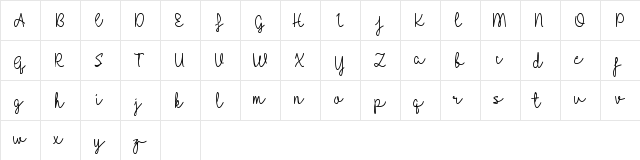
Halilintar Regular
| Designer | Aptfahmi - Fahmi sadik - Ternate |
Design Context for Halilintar Typeface
Halilintar is a composed and adaptable typeface that performs quietly and consistently across a wide range of design contexts.